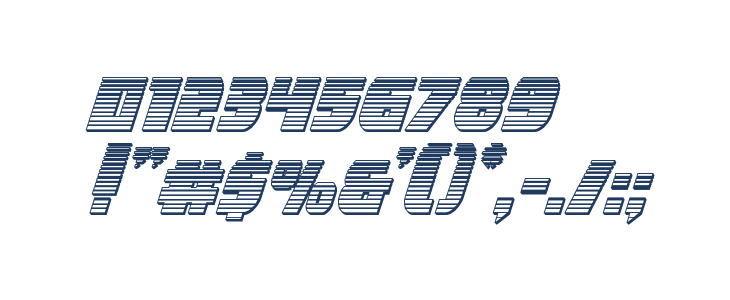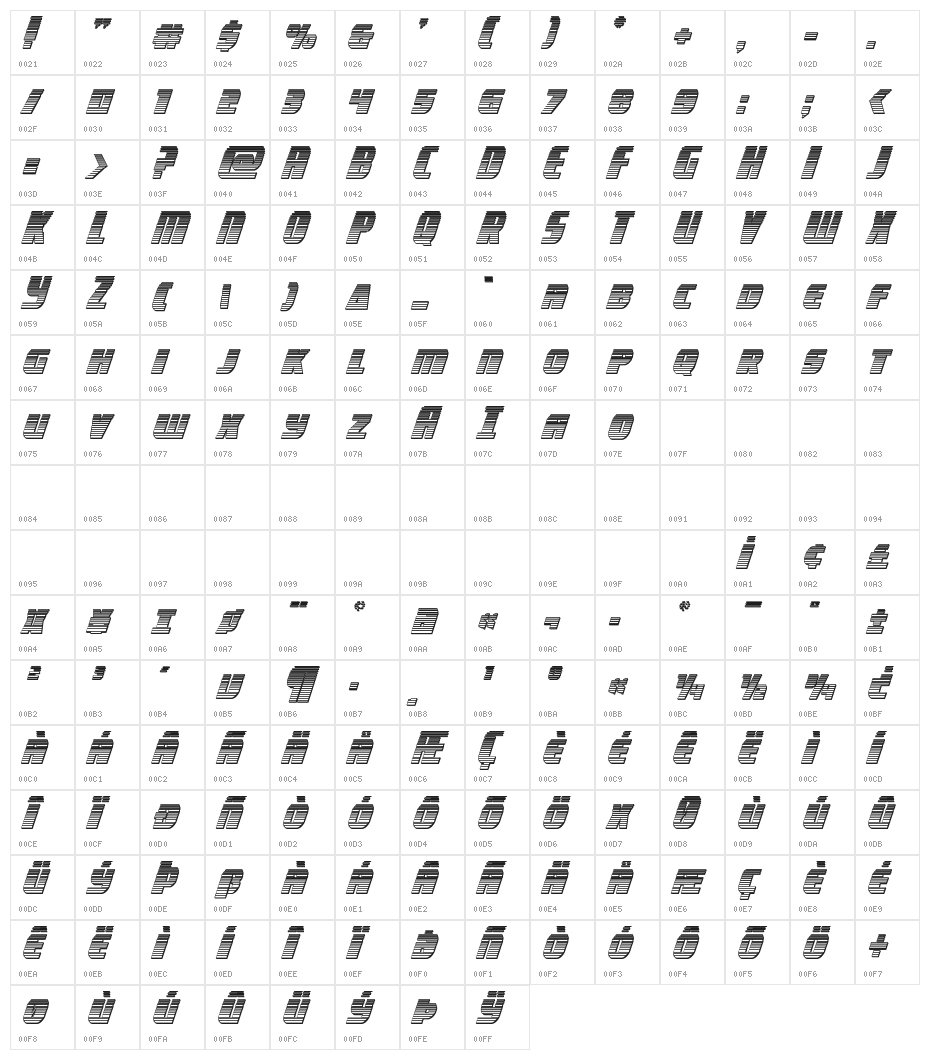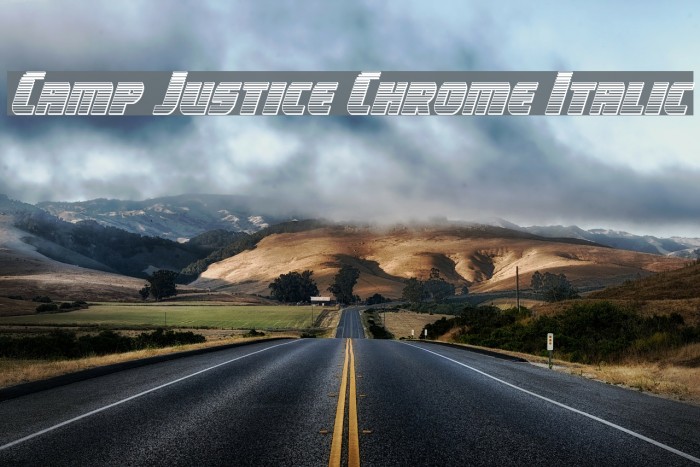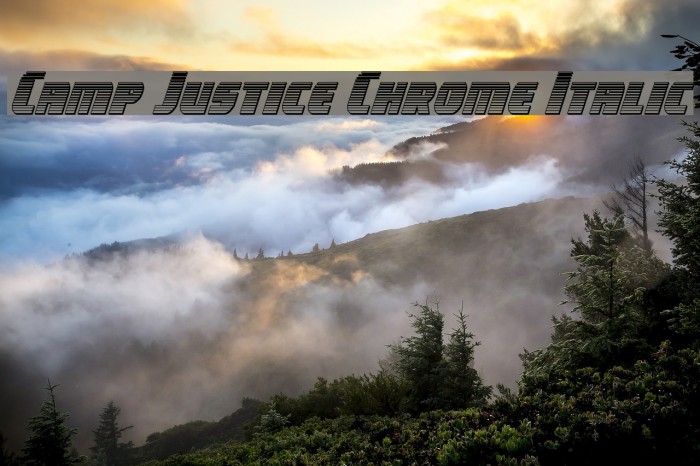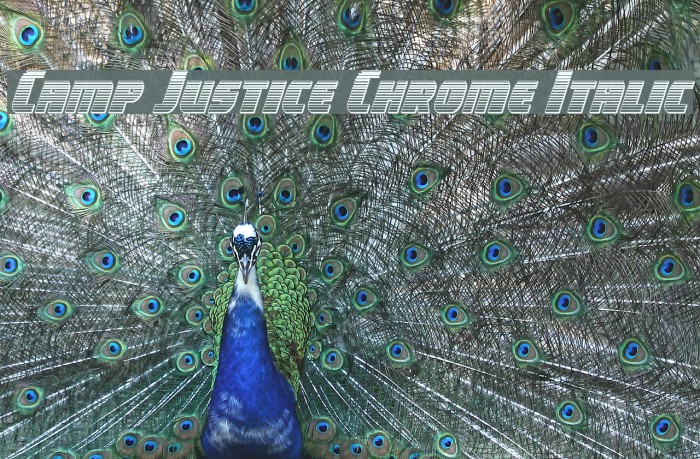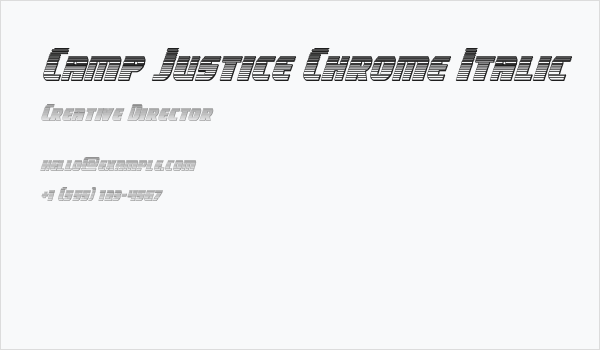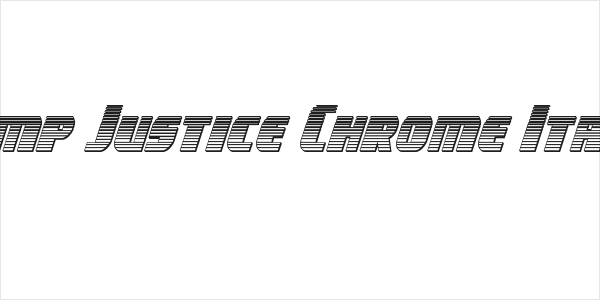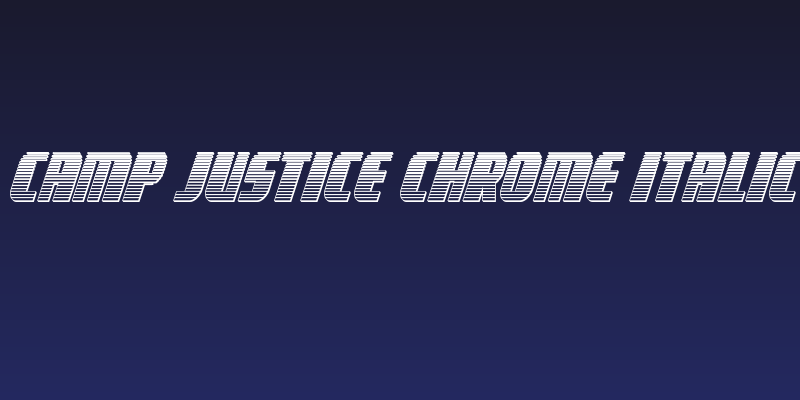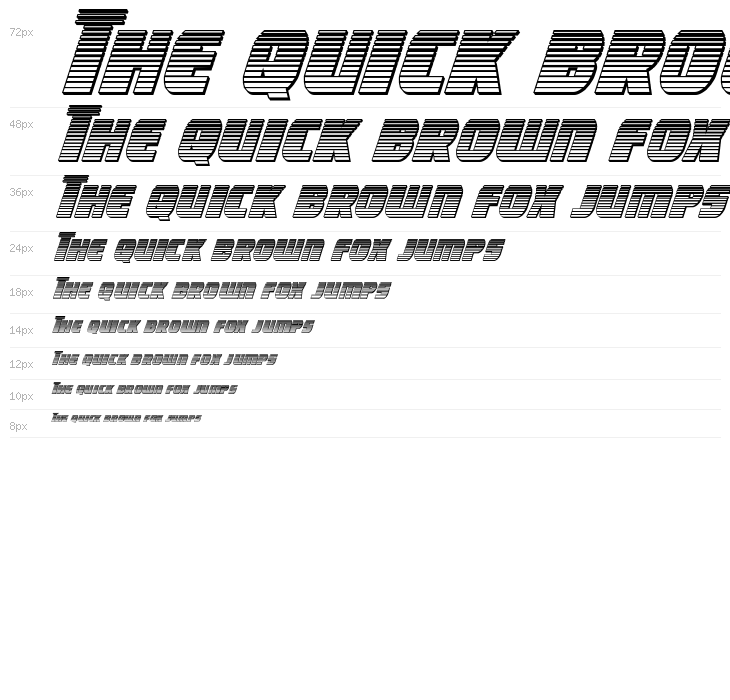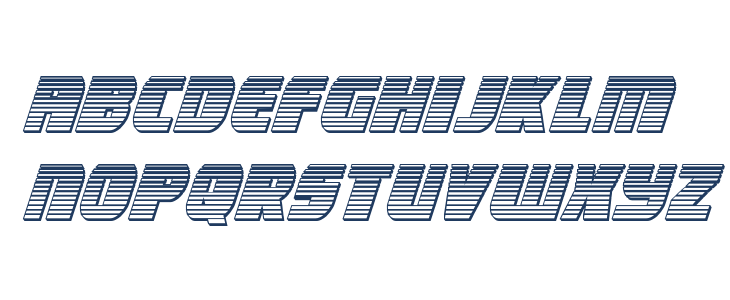
Camp Justice Chrome Italic Font
Camp Justice Chrome Italic Description
This font features a bold, italicized style with a distinct chrome-like appearance. The characters are designed with horizontal lines that create a three-dimensional effect, giving them a futuristic and dynamic look. The uppercase and lowercase letters maintain a consistent width, while the numbers and special characters follow the same design principles. The font's unique style makes it stand out, with a strong emphasis on geometric shapes and a sense of motion. It is well-suited for projects that require a modern and edgy aesthetic.
| Proposed Projects | Ideal for sci-fi themed posters, video game titles, and tech-related branding. |